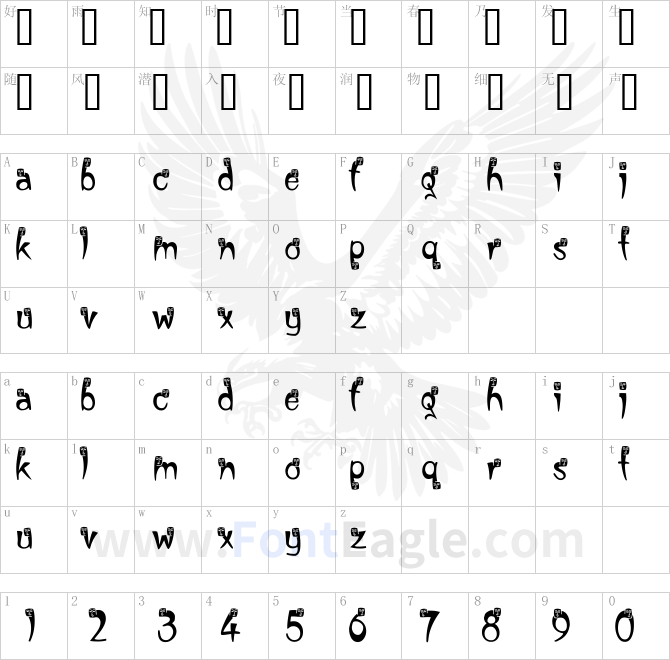
- Font name:Shazi
- Font Subfamily ID:Macromedia Fontographer 4.1.3 Shazi
- Font Full Name:Shazi
- Font Version:Macromedia Fontographer 4.1.3 12/1/01
- Postscript:Shazi
- Font Copyright:Shazi computer font v1.0 ©2001 Harold Lohner • HLohner@aol.com • HaroldsFonts.com Inspred by an example of 13th century Islamic silverwork by Shazi in the collection of the Smithsonian Institution.